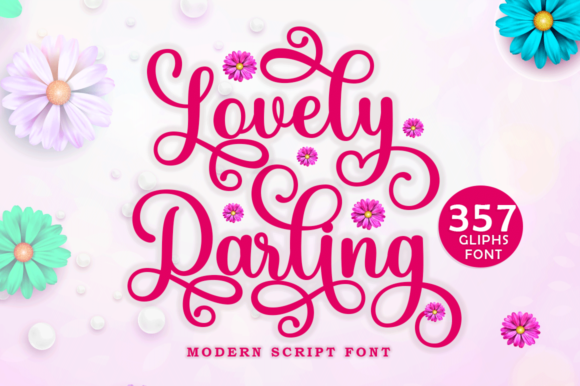
Behold, Lovely Darling Font, a script font that exudes sweetness and charm, ready to grace your designs with its enchanting presence. Dive into a world of captivating curves and elegant strokes that will transform your creative visions into masterpieces. Say goodbye to ordinary typography and embrace the allure of Lovely Darling, a font that whispers romance and joy into every project it touches.
Unleash your imagination and let Lovely Darling's graceful dance lead you to new heights of creativity. Its delicate lines and flowing characters add a touch of sophistication to logos, branding, wedding invitations, greeting cards, and fashion designs. Picture your designs adorned with this elegant script, captivating audiences with its timeless beauty.
With Lovely Darling, create marketing campaigns that leave a lasting impression. Its charm will elevate your promotions, captivating customers with its effortless allure. Whether you're crafting social media posts, eye-catching flyers, or stunning lookbooks, Lovely Darling will make your words shine.
This PUA-encoded font opens up a world of possibilities. Access a treasure trove of glyphs and ligatures with ease, adding depth and dimension to your designs. Experiment with different combinations to create unique and captivating compositions that reflect your unique style.
Lovely Darling is not just a font; it's an experience. Immerse yourself in its enchanting embrace and watch as your creative dreams come to life. With its gentle touch, Lovely Darling will transform your designs into works of art that resonate with audiences and leave an indelible mark on their hearts.